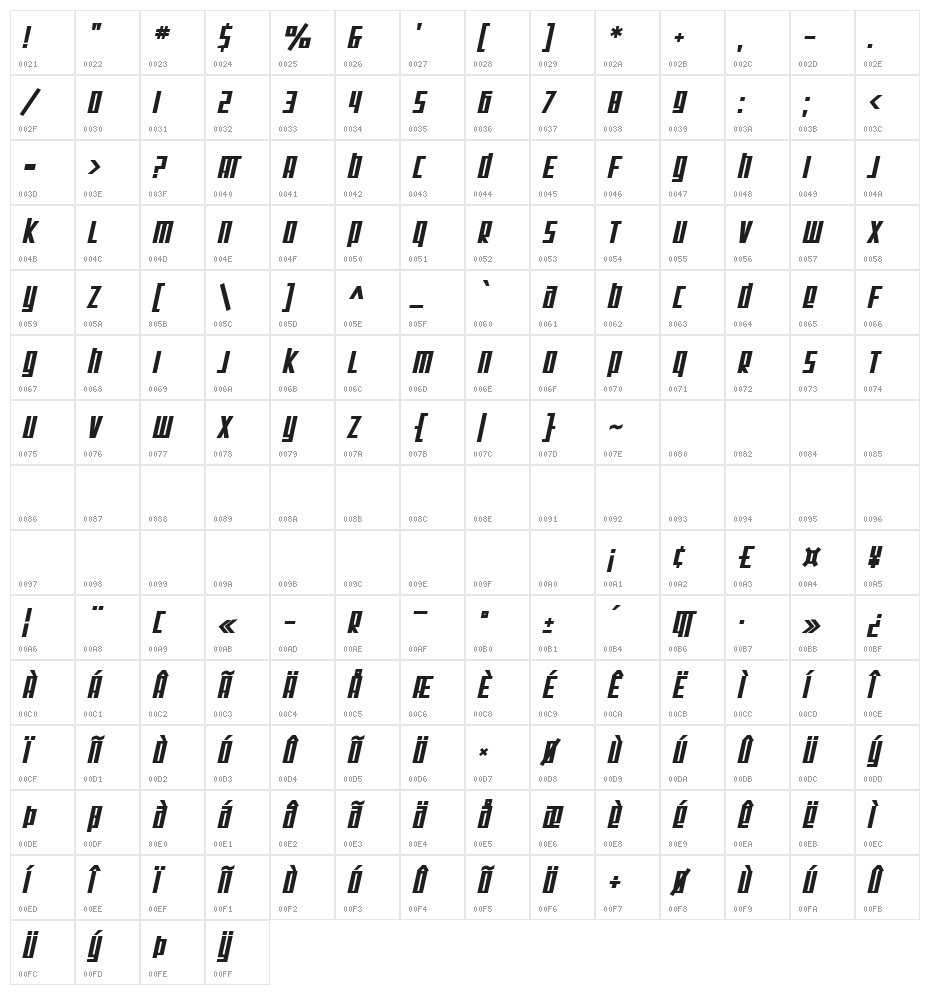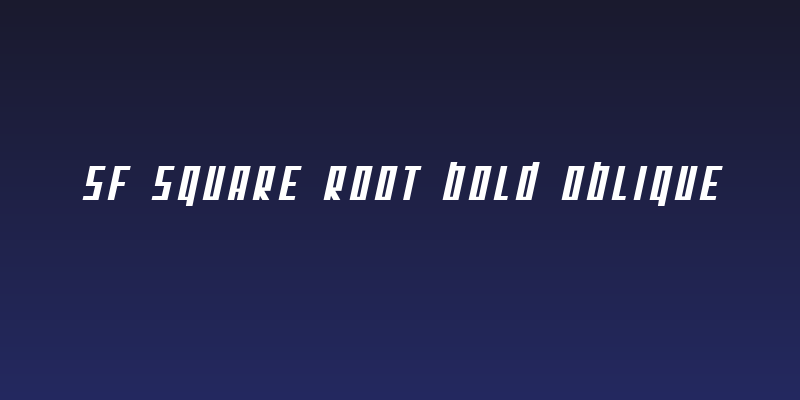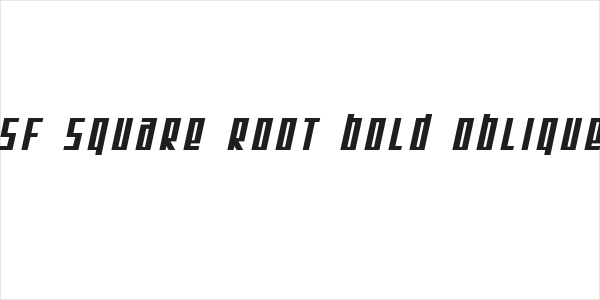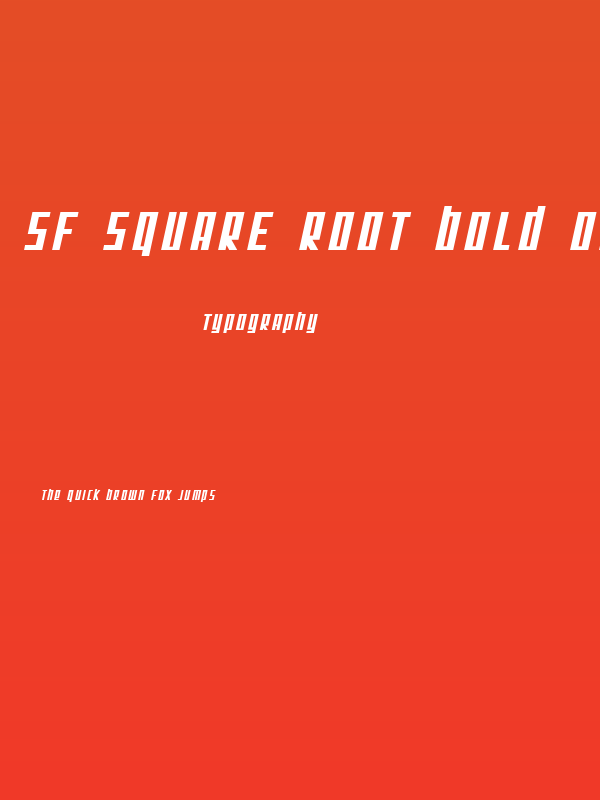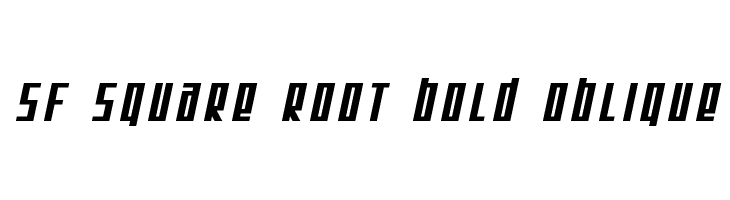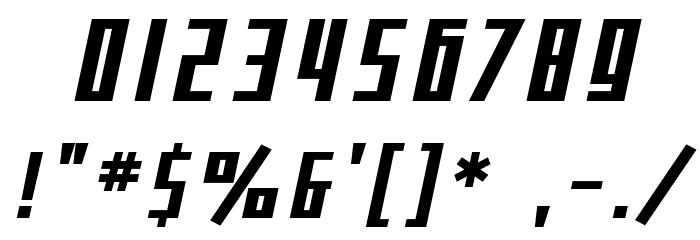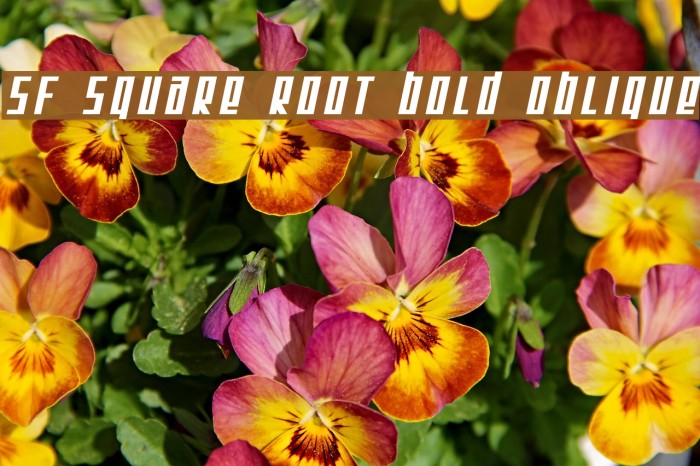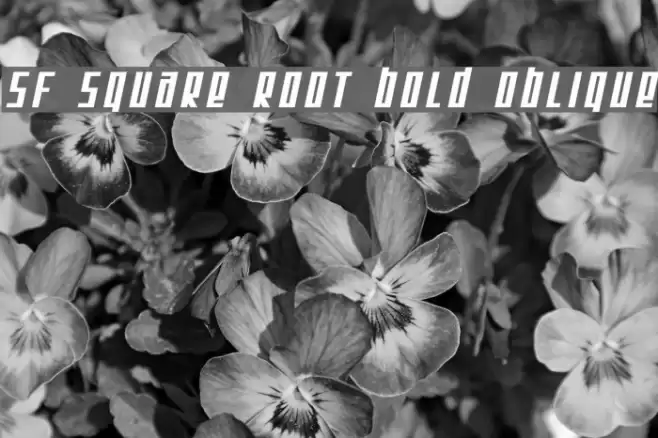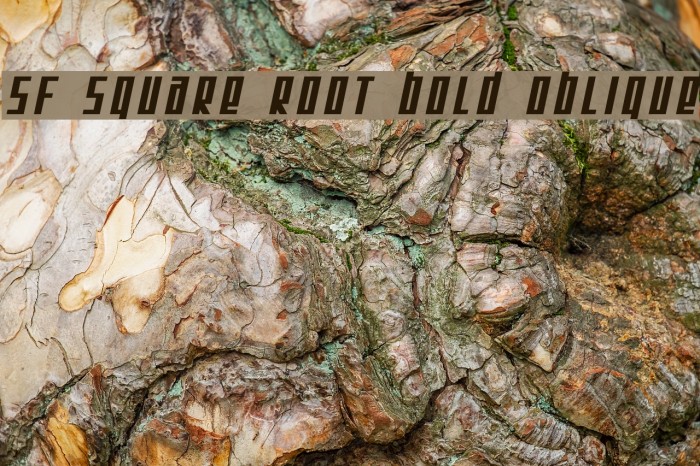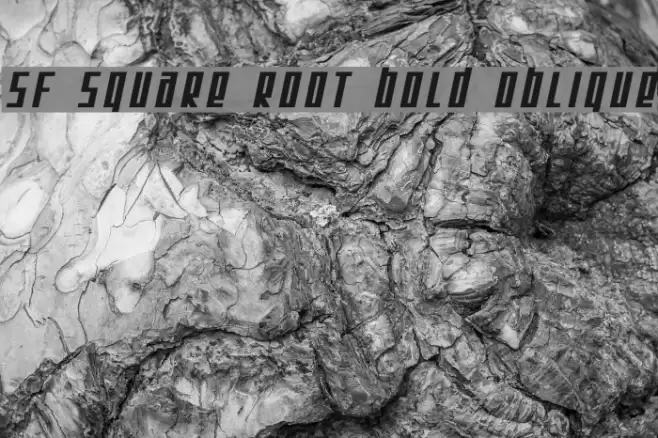
SF Square Root Bold Oblique Font
SF Square Root Bold Oblique Description
This font features a bold and oblique style with a distinct geometric structure. The characters are sharply angled, giving a dynamic and modern appearance. The uppercase and lowercase letters maintain a consistent slant, enhancing the oblique effect. The numerals are equally bold and follow the same angular design, ensuring uniformity across all characters. Special characters are included, each designed to match the overall aesthetic. The font's boldness and slant make it stand out, ideal for projects that require a strong visual impact.